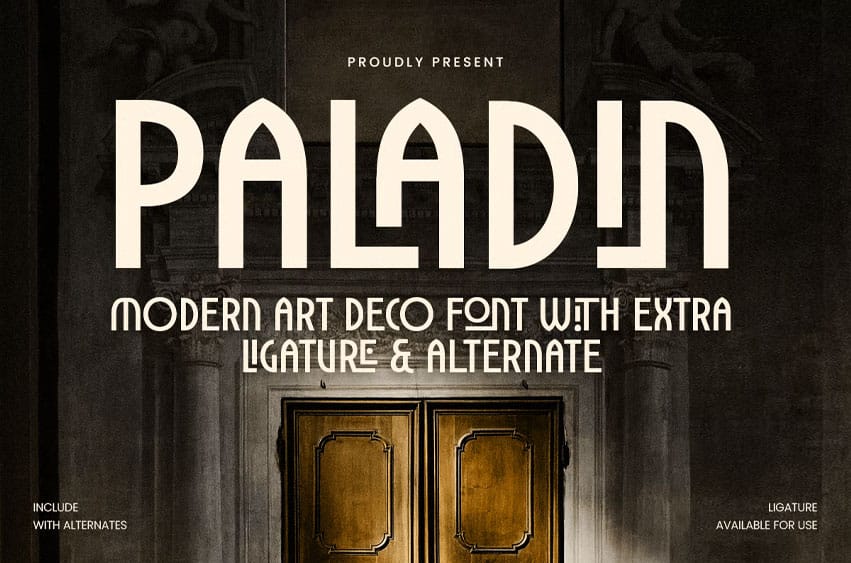
Paladin Font is a modern art deco font that reimagines the elegance of the 1920s with a clean, contemporary twist. Blending geometric precision with refined details, this typeface is ideal for luxury branding, editorials, product packaging, and high-end visual identities.
Inspired by Art Deco architecture and vintage typography, PALADIN combines timeless sophistication with modern versatility. Its sharp edges, graceful curves, and bold contrast create an elevated aesthetic perfect for fashion, lifestyle, jewelry, or beauty brands.
Whether used for logos, magazine titles, invitations, or signage, PALADIN delivers a statement of elegance and confidence. Designed for both digital and print media, it adds a distinct touch of refinement that stands out in professional design compositions.
PALADIN – Modern Art Deco Font Features
- Elegant Art Deco design with a modern geometric approach
- Perfect for luxury branding, packaging, and editorial design
- Ideal for logos, invitations, fashion, and creative projects
- Combines classic inspiration with clean, contemporary style
- OpenType features for advanced typographic creativity
Channel timeless elegance and modern geometry with PALADIN – the ultimate art deco font for luxury branding, editorial layouts, and refined creative design.